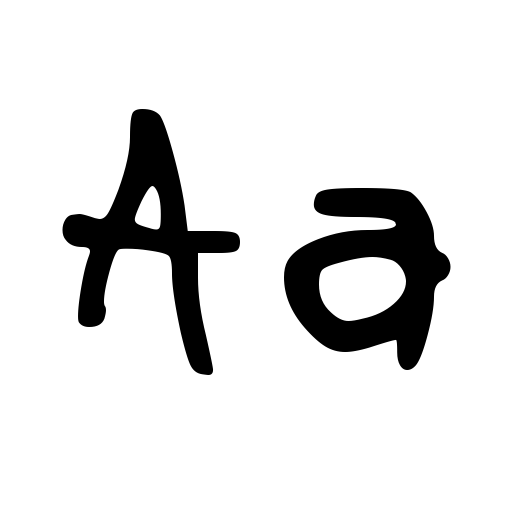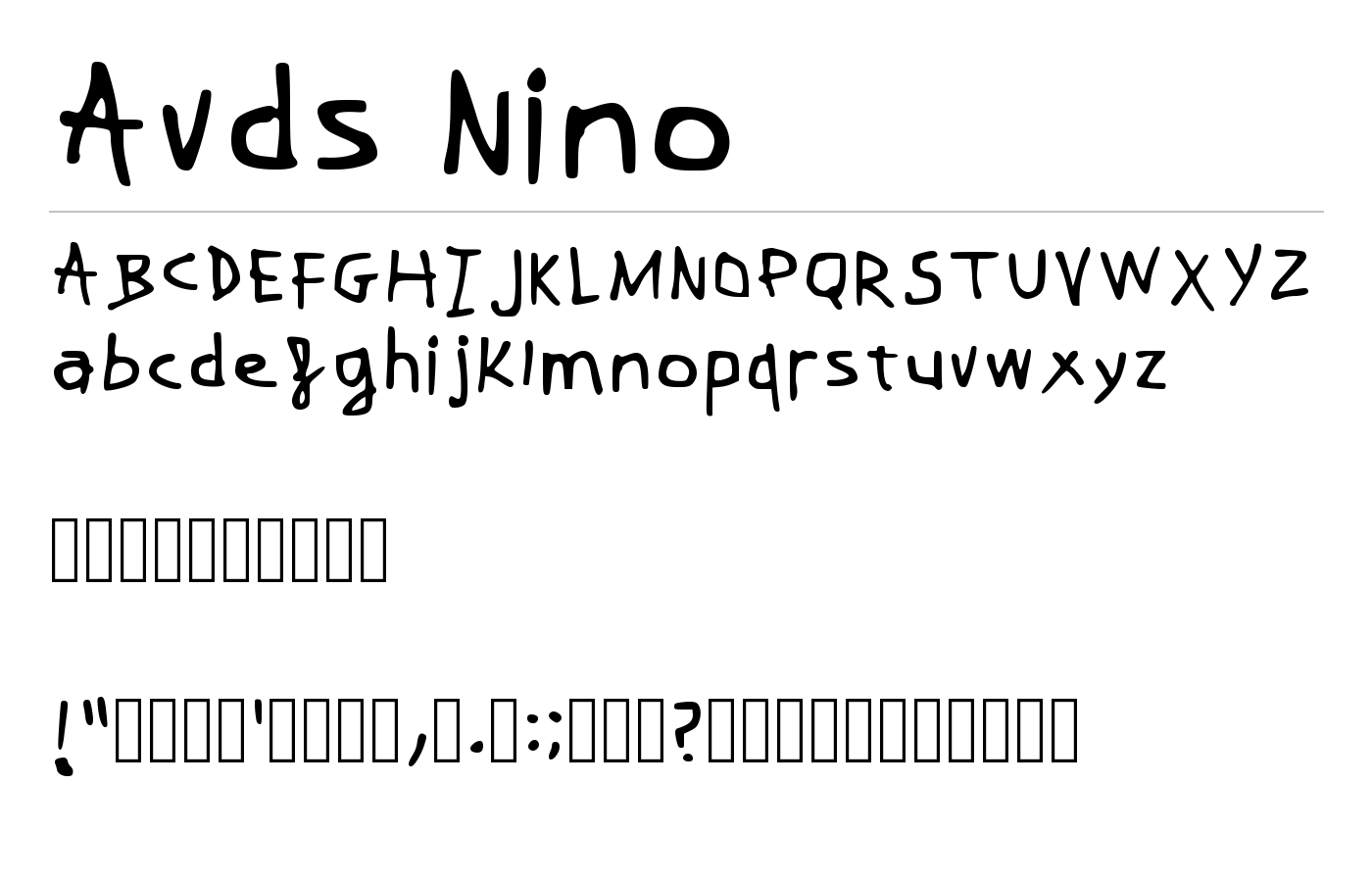
Avds Nino is a playful, hand-drawn sans serif font with an informal and quirky charm. Its irregular strokes and whimsical letter shapes give it a friendly, approachable personality, making it perfect for creative projects, children’s materials, and casual branding. This font works well in headlines, logos, and packaging where a fun, personal touch is desired.
Avds Nino Font